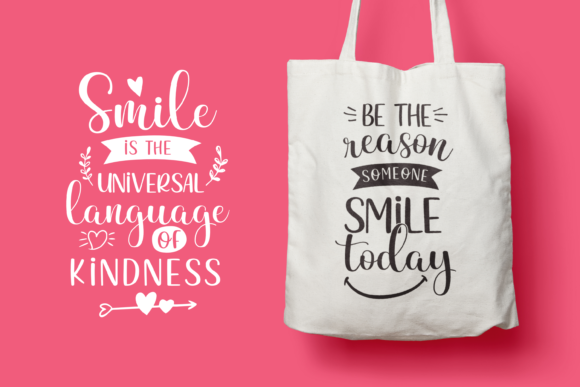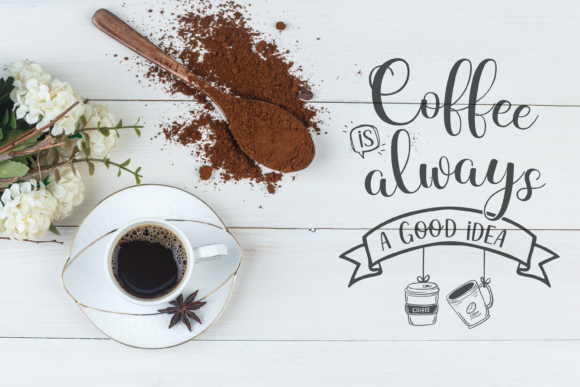
Beauty and Elegant Font
db-ku.com - Script & Handwritten -- Beauty and Elegant is a ravishing duo font (handwritten and sans serif). Incredibly versatile, this font fits a wide pool of designs, elevating them to the highest levels. The only limit is your imagination!